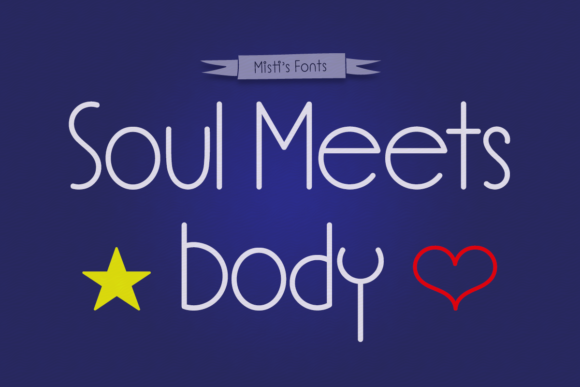
Immerse yourself in a typographic odyssey with Soul Meets Body Font, the celestial creation from the visionary mind of Misti. This interstellar sans-serif typeface is a cosmic collision of elegance and audacity, designed to ignite your designs with the power of a thousand stars.
Let Soul Meets Body Font carry your words beyond the confines of ordinary typography, propelling them into a realm of galactic grandeur. Its crisp lines and interstellar curves dance upon the page, capturing the essence of the cosmos and bestowing upon your designs an otherworldly allure.
With Soul Meets Body Font, your headlines will command attention like supernovae, illuminating your messages with an ethereal brilliance. Its majestic presence transforms logos into celestial emblems, leaving an enduring mark on the hearts and minds of your audience.
Whether gracing the pages of posters or adorning the vibrant hues of flyers, Soul Meets Body Font unravels a tapestry of endless possibilities. Its versatility transcends the boundaries of imagination, empowering you to explore uncharted territories of design excellence.
Embrace the cosmic allure of Soul Meets Body Font today and witness the birth of typographic masterpieces that will leave an indelible imprint on the digital universe. Let your designs soar among the stars, guided by the luminous brilliance of this font forged in the fires of creativity.